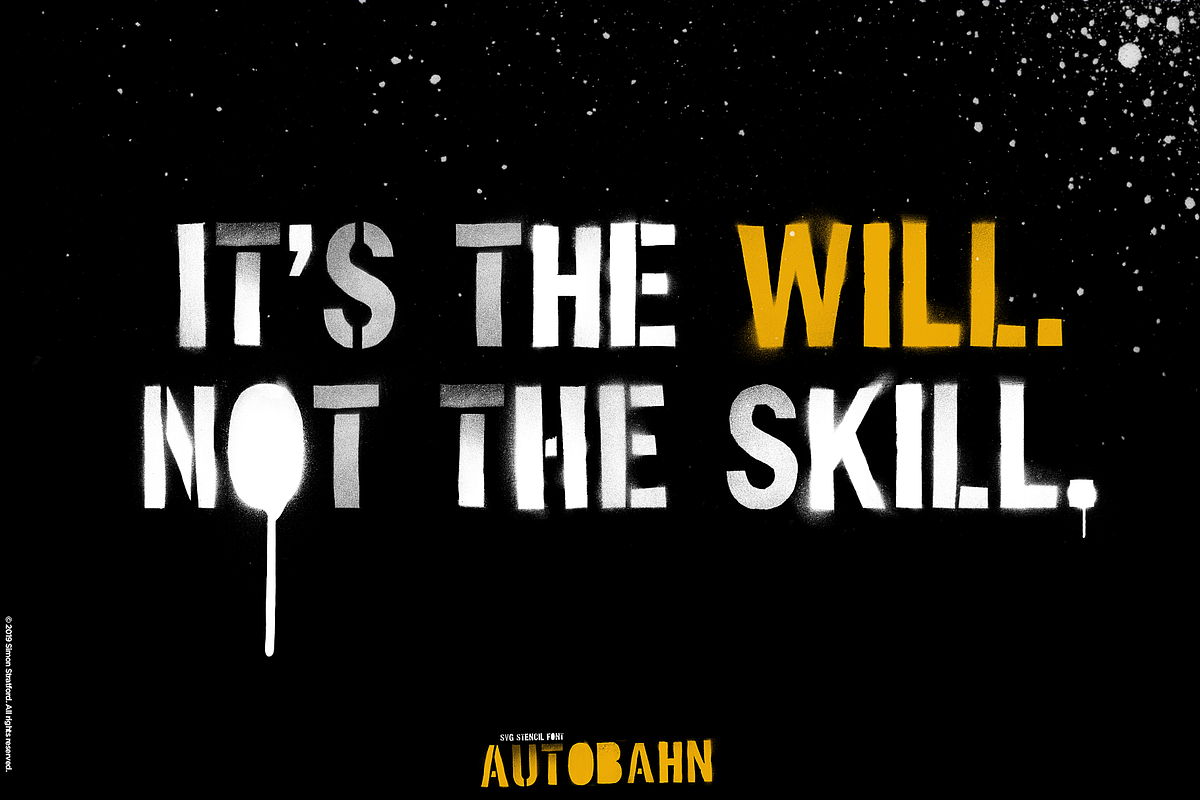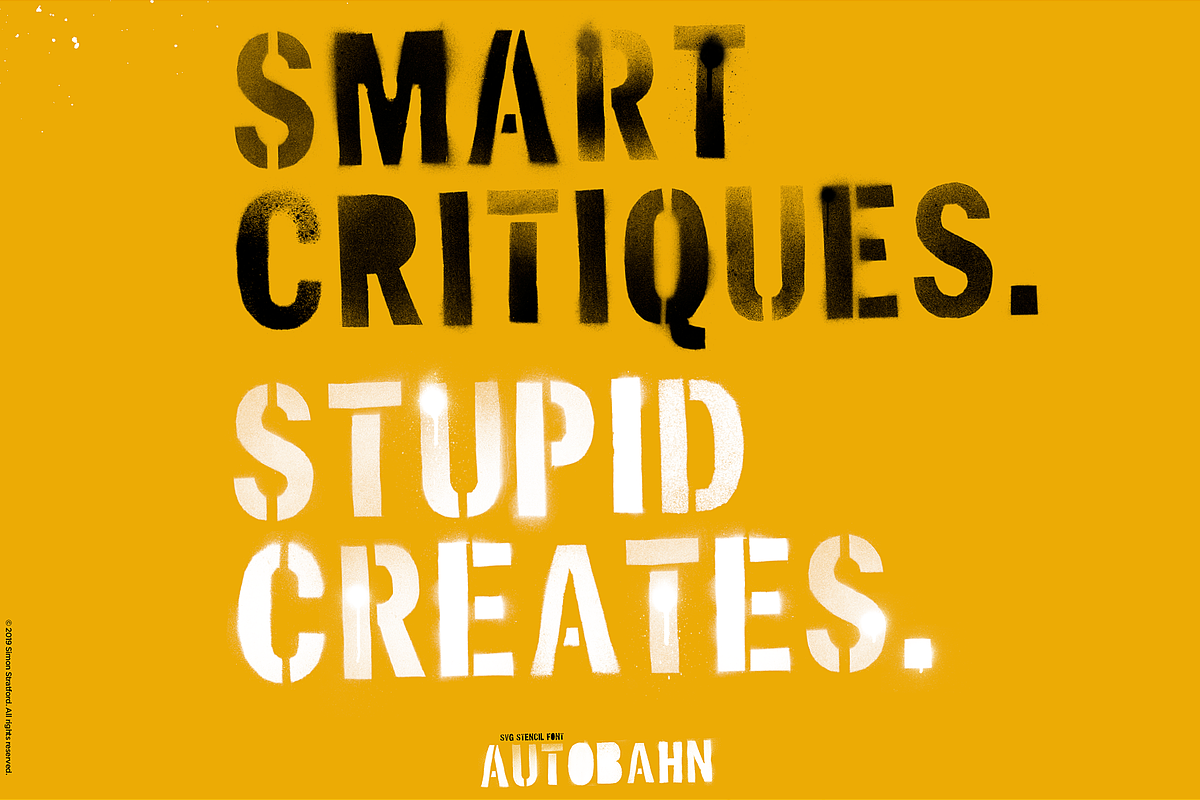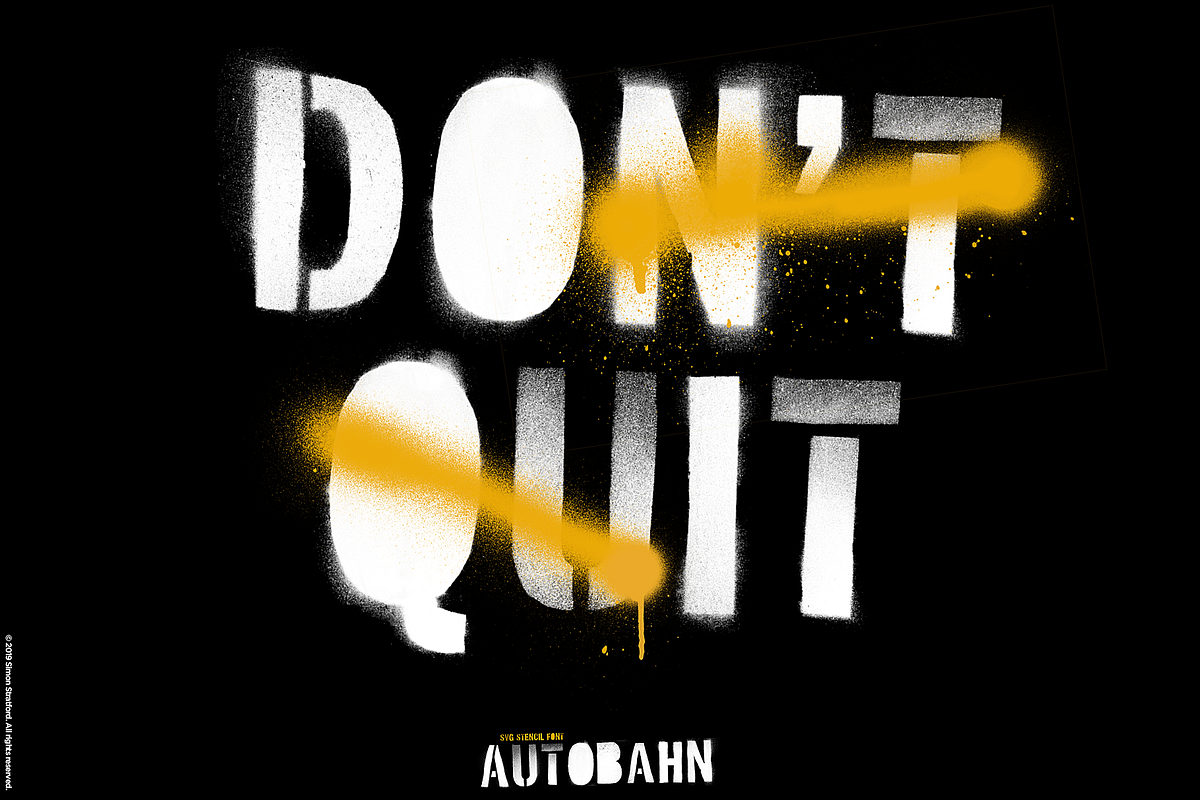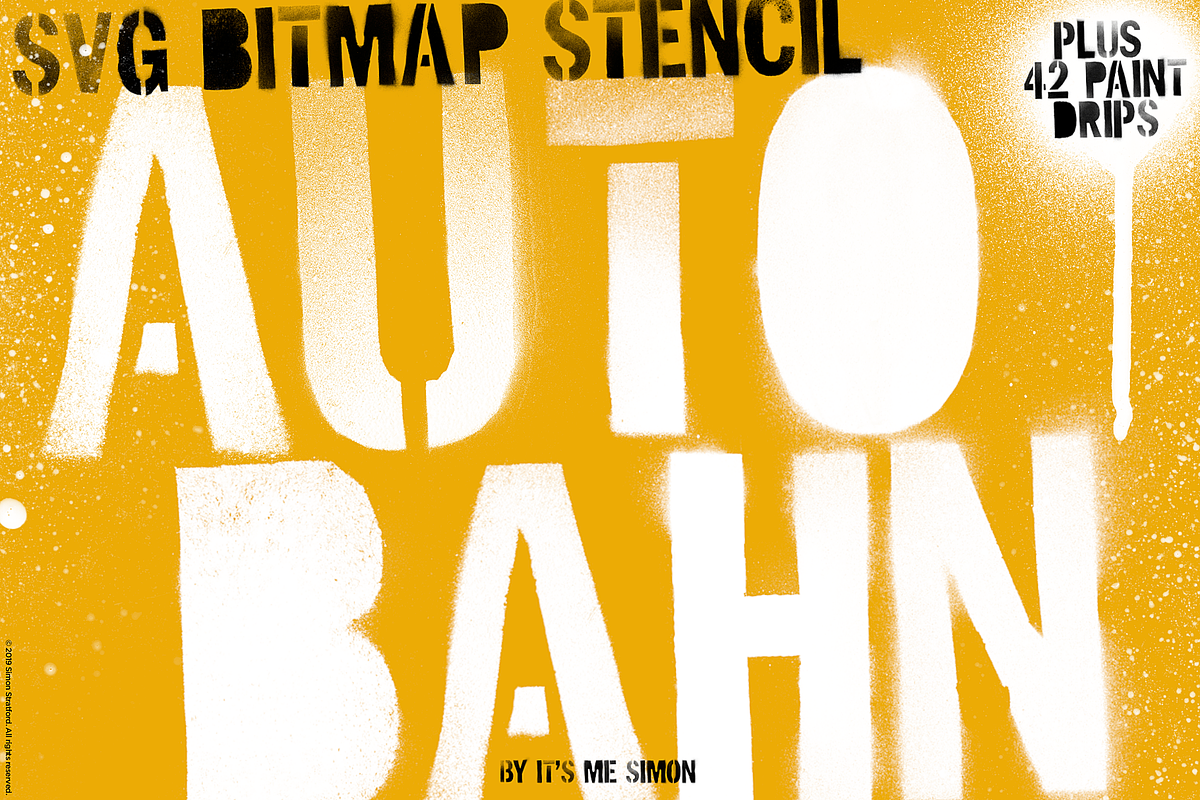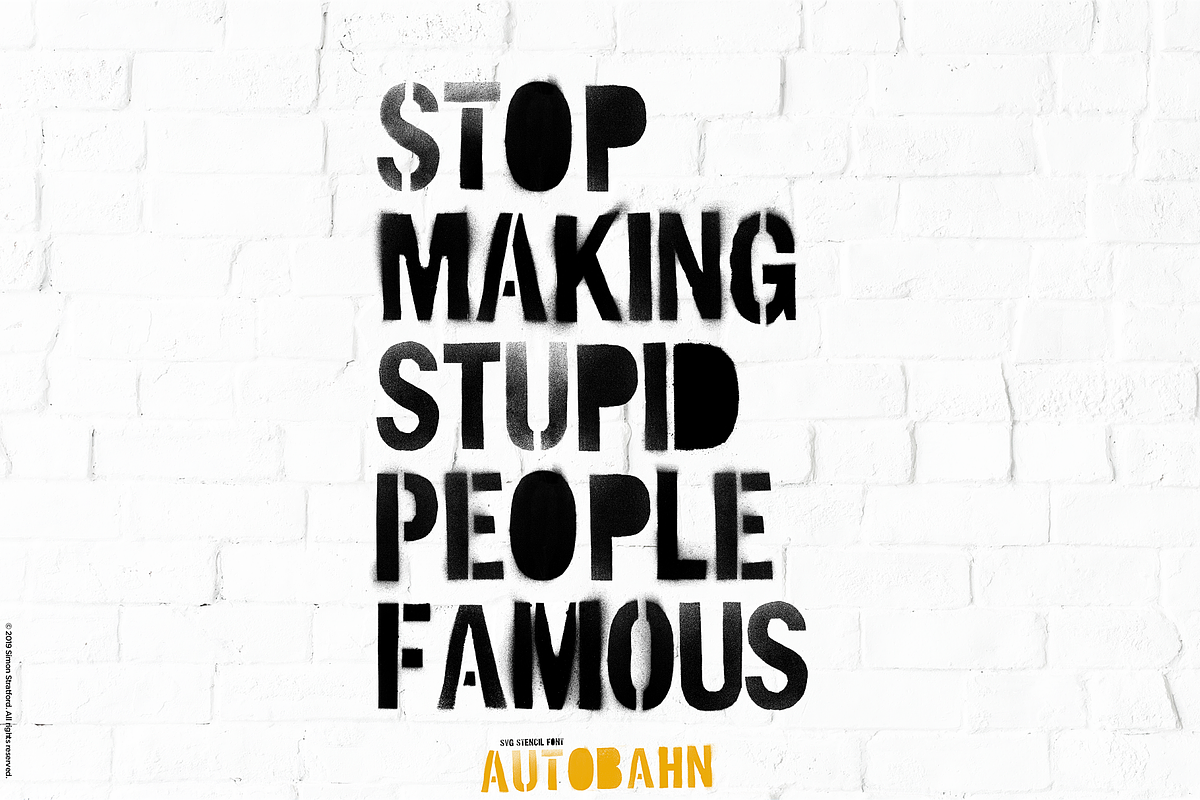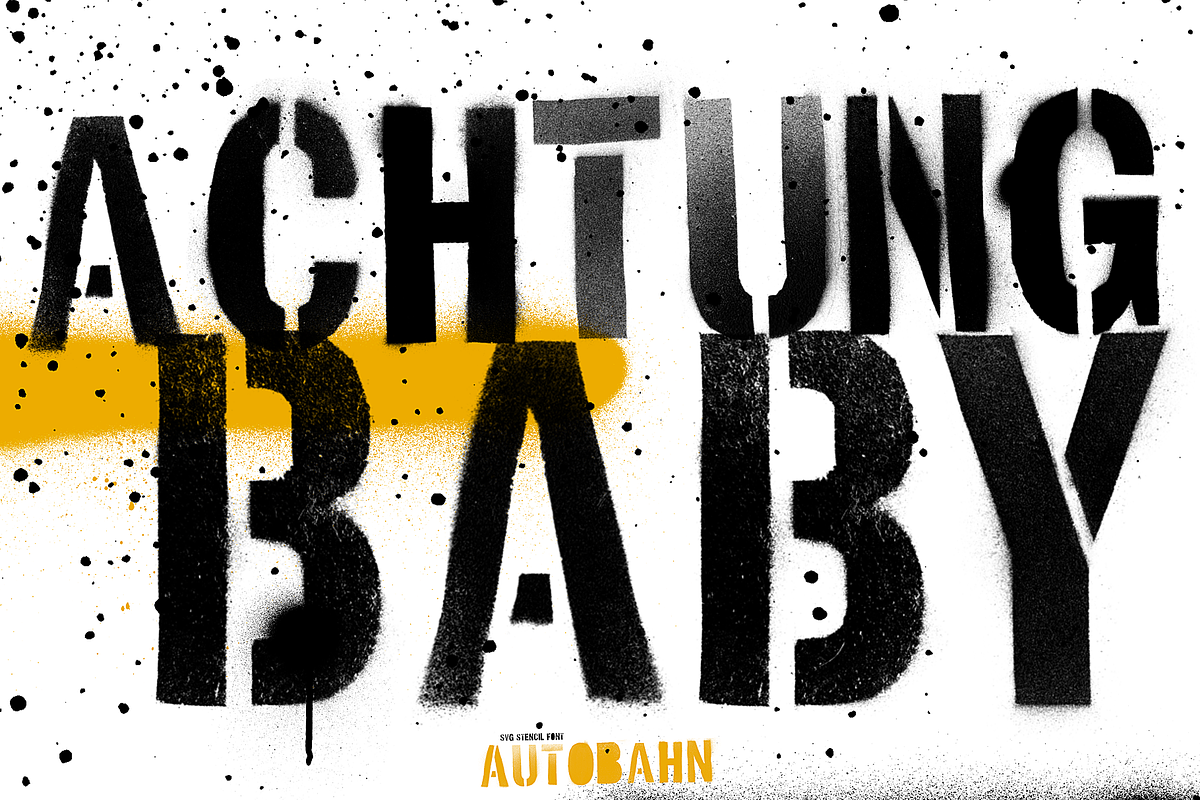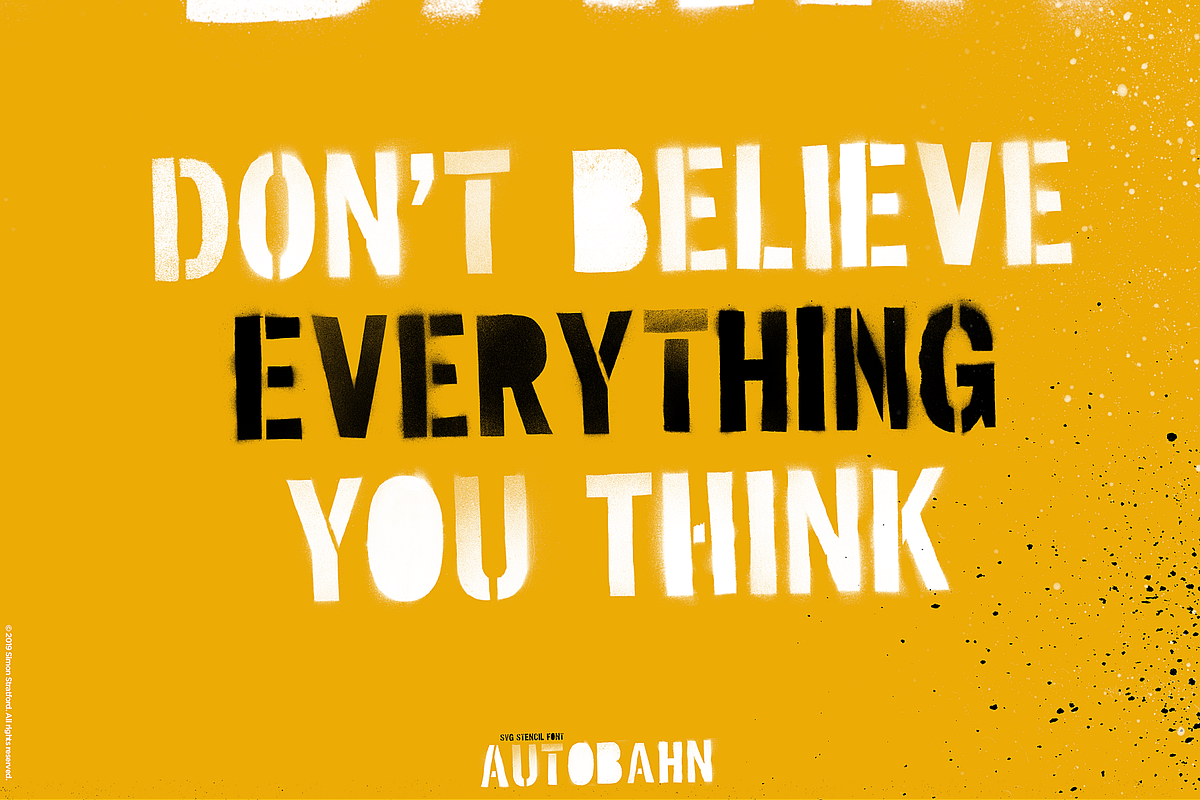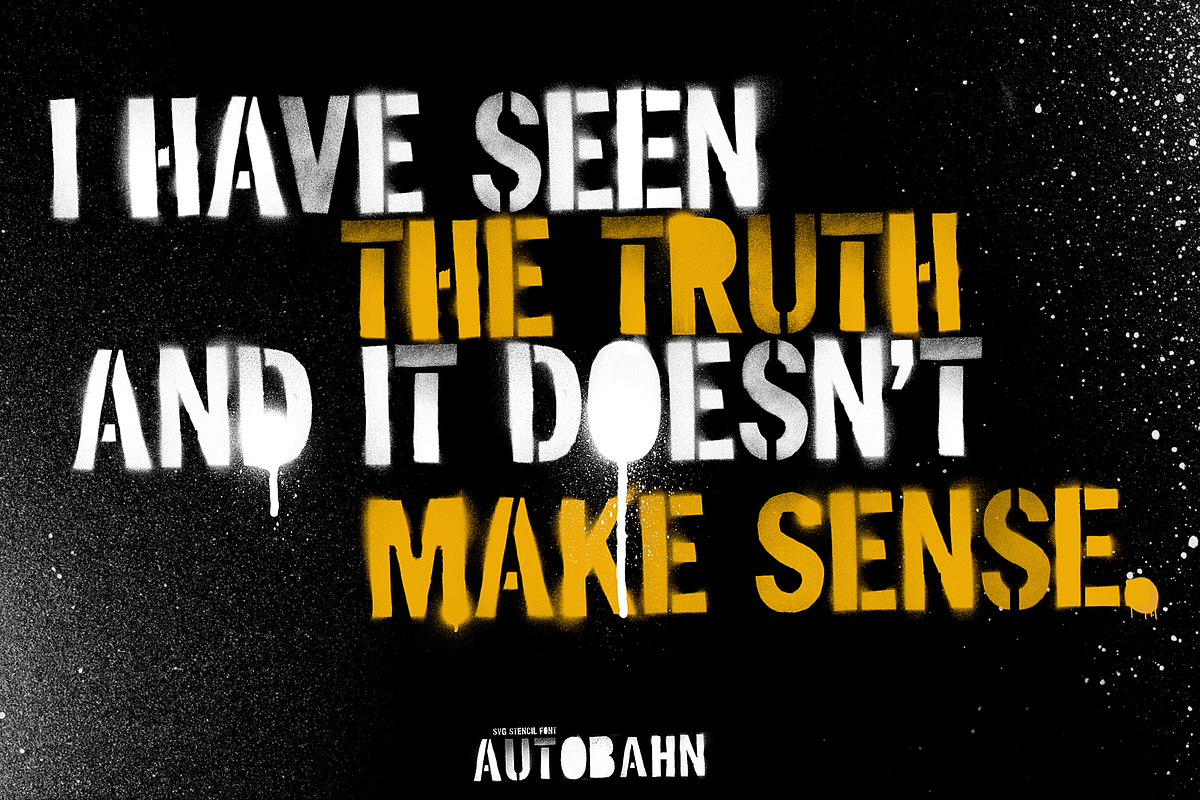
Display font Autobahn Stencil
Display font Autobahn Stencil —Autobahn is a bold display font stencil typeface that has a monumental amount of spray paint detail.
It's not a traditional vector font. It blows the traditional vector font out of the water. You will not find a more detailed and realistic stencil spray paint font and that's due to the new OpenType-SVG Bitmap font format.
A traditional vector font as one colour and no transparency. Autobahn has full transparency and thousands of shades of black and grey. The OpenType-SVG Bitmaps technology gives the font so much more detail than the old font format.
I created Autobahn with real stencils, real spray paint and real paper. All hand cut by my little digits and converted to a typeface.
Autobahn emulates a real stencil font, so is far from perfect. Some letters have overspray, others have paint splatters, and some look clean and crisp.
Each glyph has its own unique texture. The font is messy and edgy just like it would be in the real world.
The typeface is ideal for getting that urban street style or the military look. Suitable for advertising, posters, packaging, album covers, headlines, book covers and packaging or anything where you want that unique graffiti vibe.
** Unicase typeface **
Autobahn is a unicase typeface—it has no lowercase letters. Everything is in uppercase. It does contain alternative uppercase letters in the lowercase a-z. It also has a few alternative glyphs with the counters removed. So with at least two alternatives for each letter, you can get a more random look.
Vector font included
A standard vector font is included, but it’s nowhere near the quality of the OpenType-SVG Bitmap font.